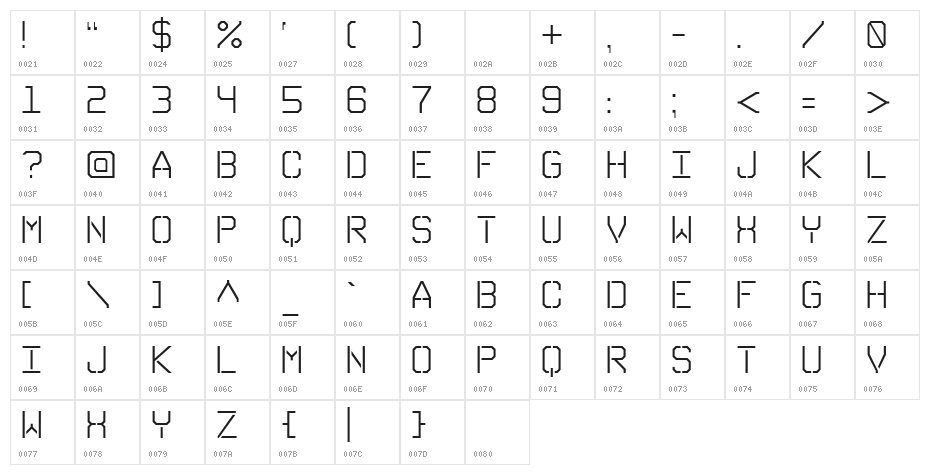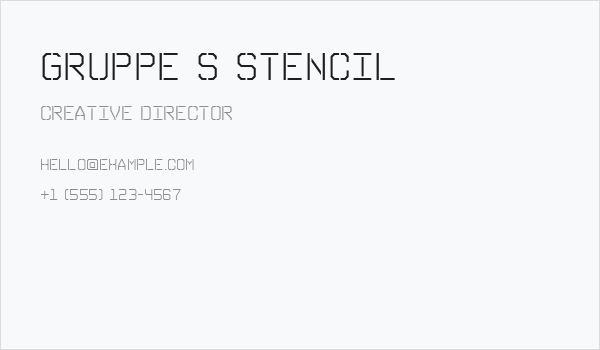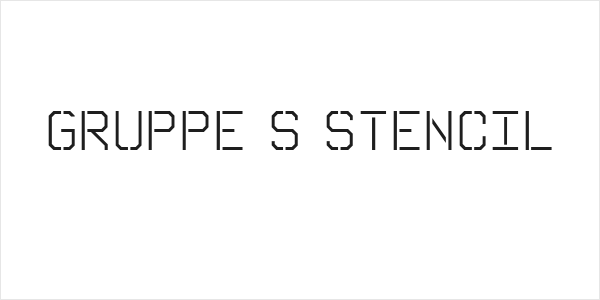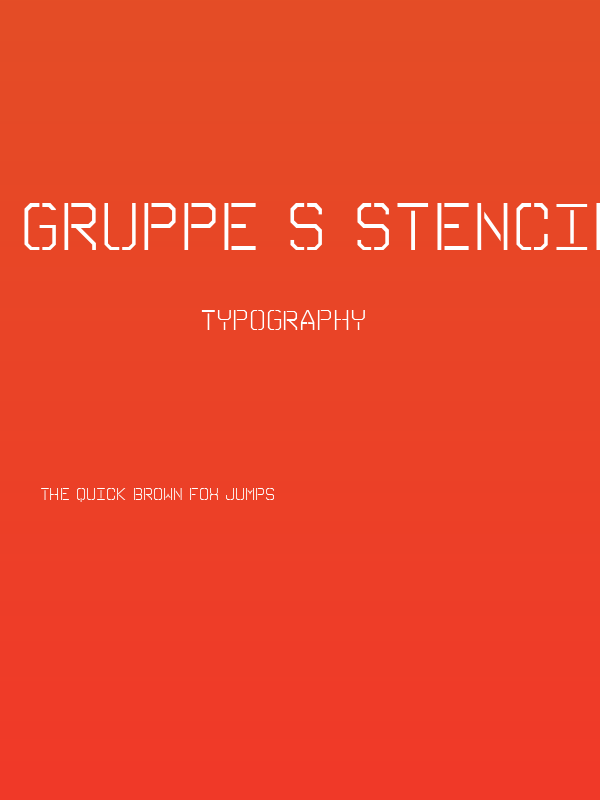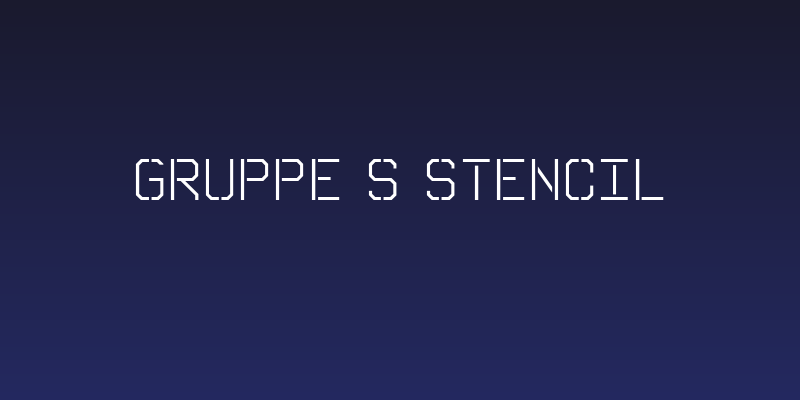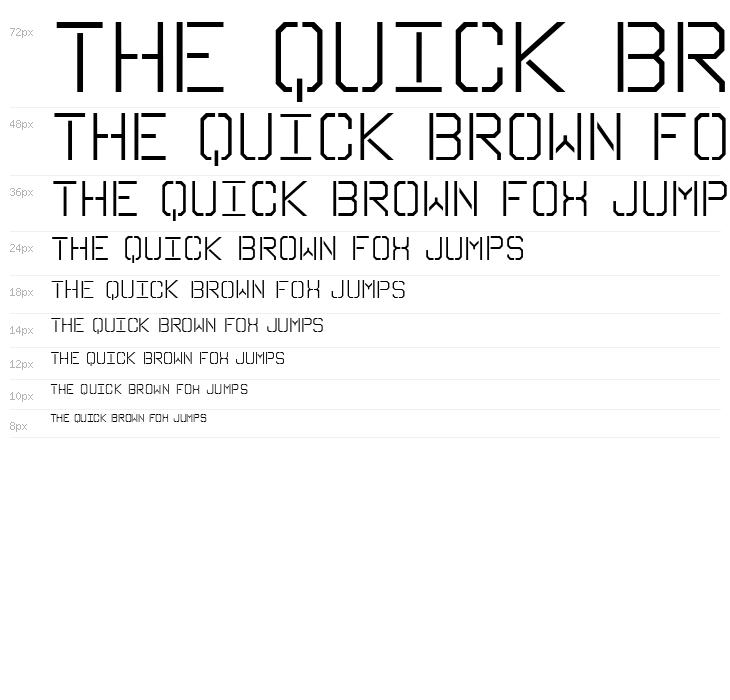
Gruppe S Stencil Font
Gruppe S Stencil Description
This font features a modern, stencil-like design with a geometric structure. Each character is composed of straight lines and sharp angles, giving it a technical and industrial feel. The uppercase and lowercase letters maintain a consistent height, creating a uniform appearance. The numerals and special characters follow the same design principles, ensuring cohesion across all glyphs. The stencil gaps are strategically placed to enhance readability while maintaining the font's distinctive style. This font is ideal for projects that require a bold, futuristic look.